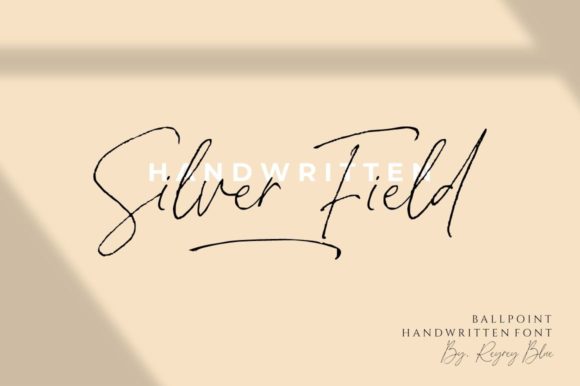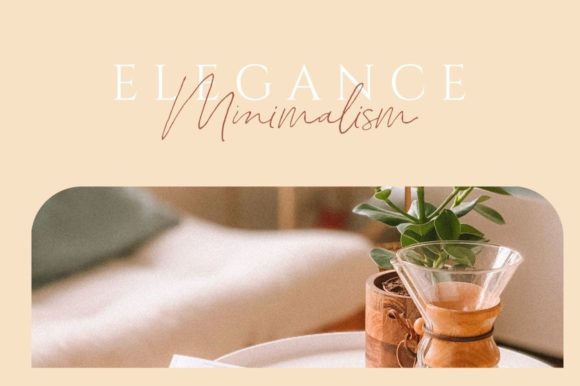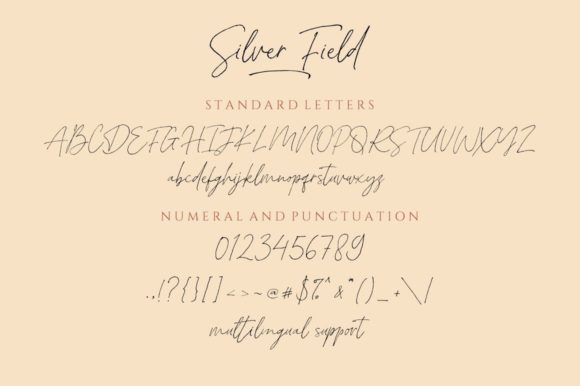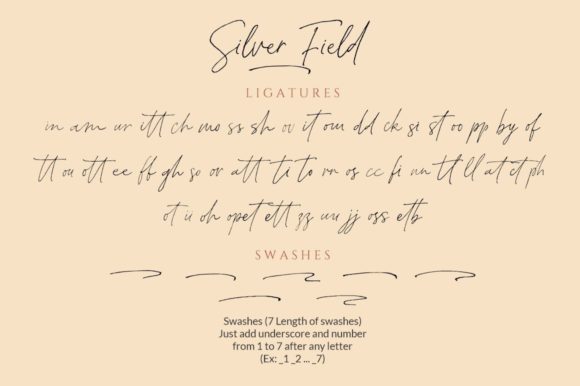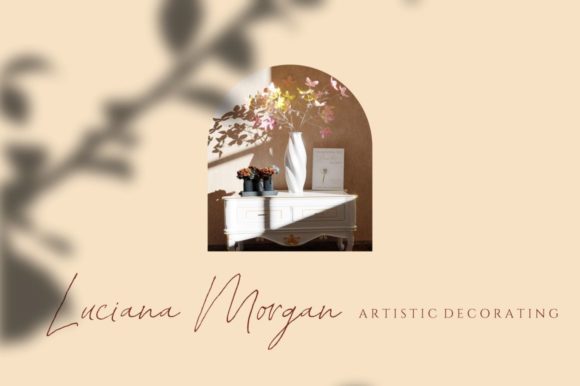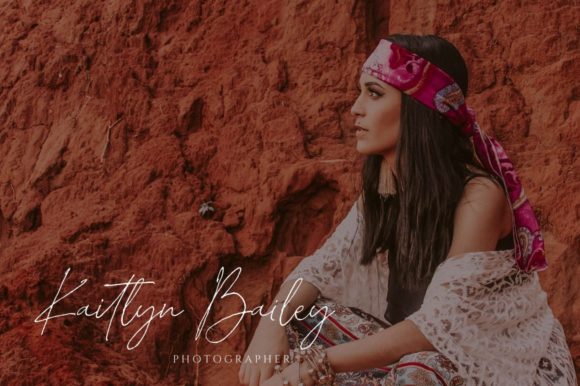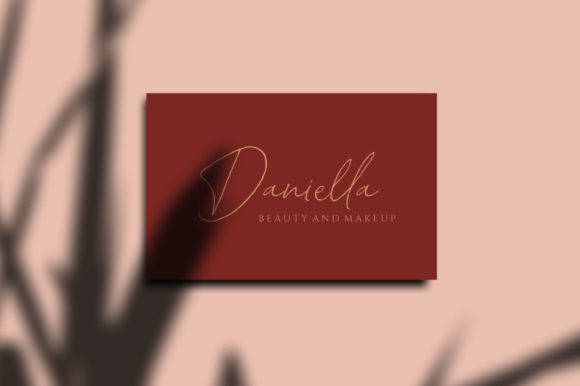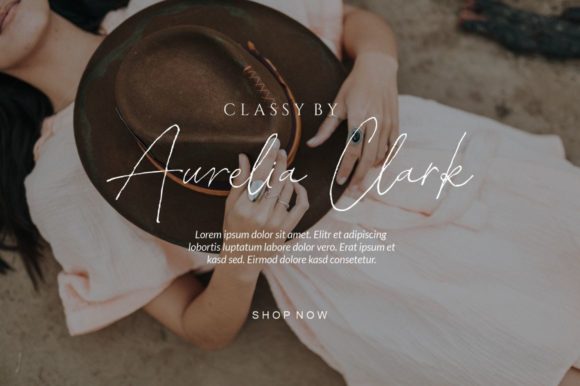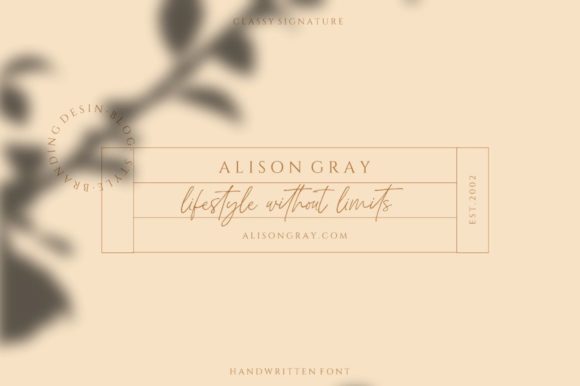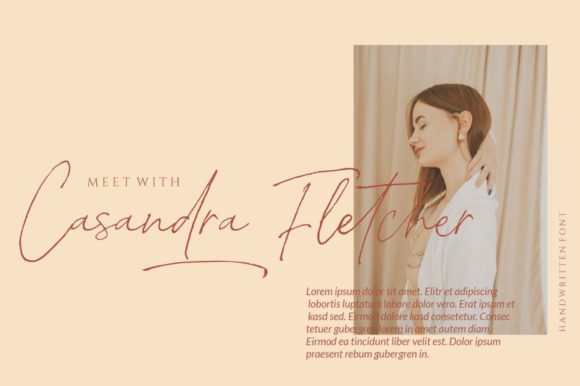
Silver Fields Font
About Silver Fields Font
Silver Fields is a sweet, all round and flexible handwritten font. Warm, romantic and jolly, this font will turn each of your project ideas into real works of art.
It is PUA encoded which means you can access all of the glyphs and swashes with ease!